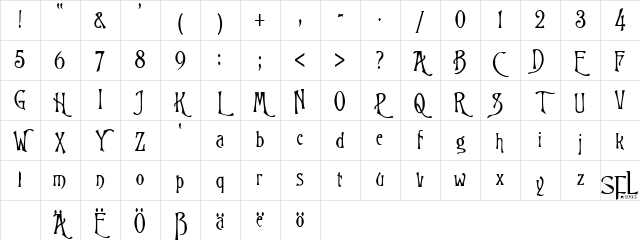
Burton's Nightmare Regular
Design Context for Burton's Nightmare
Burton's Nightmare is a composed and adaptable typeface that performs quietly and consistently across a wide range of design contexts.
Pro Tip: Use Burton's Nightmare in both headline and body roles to test its range before committing to a single application.